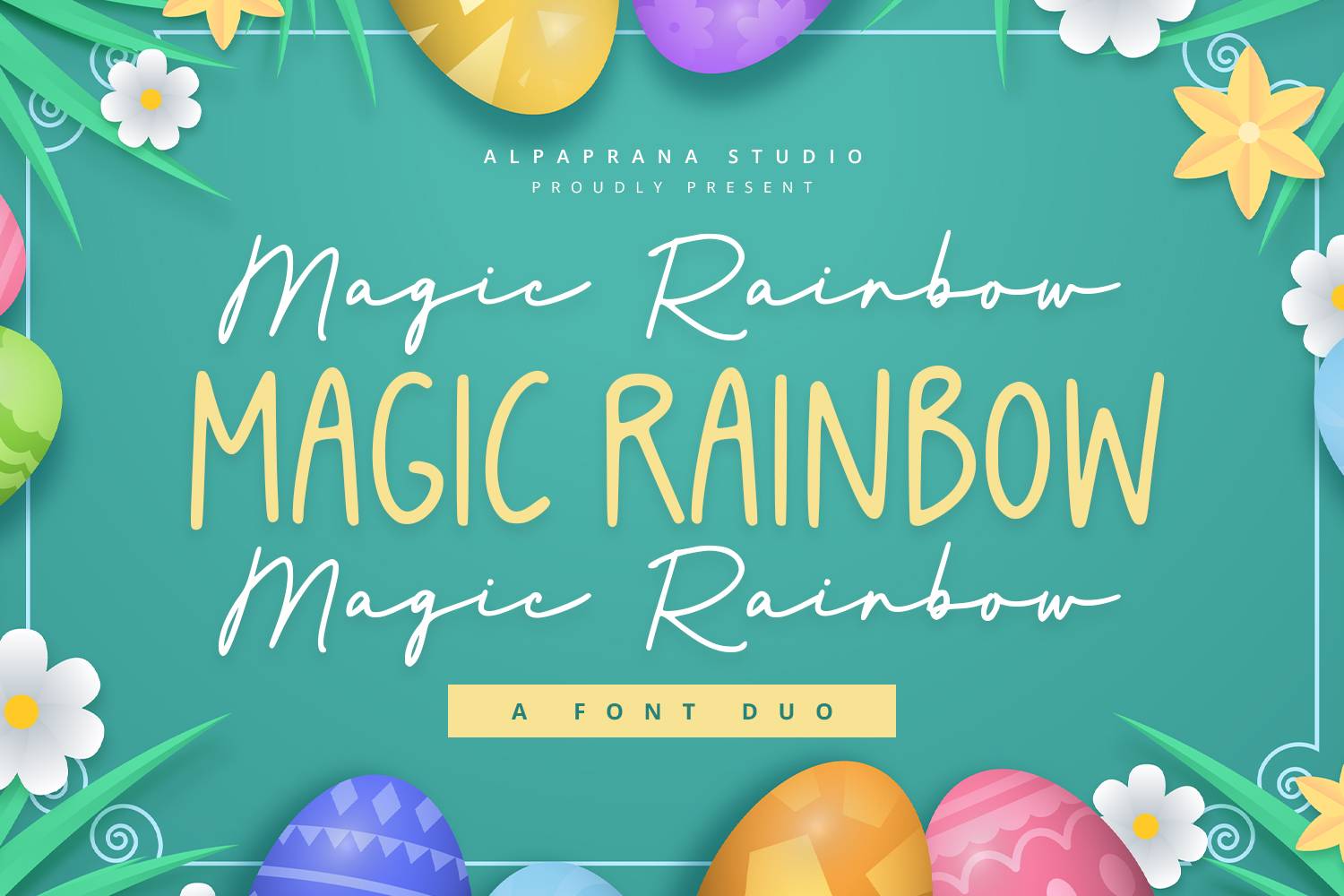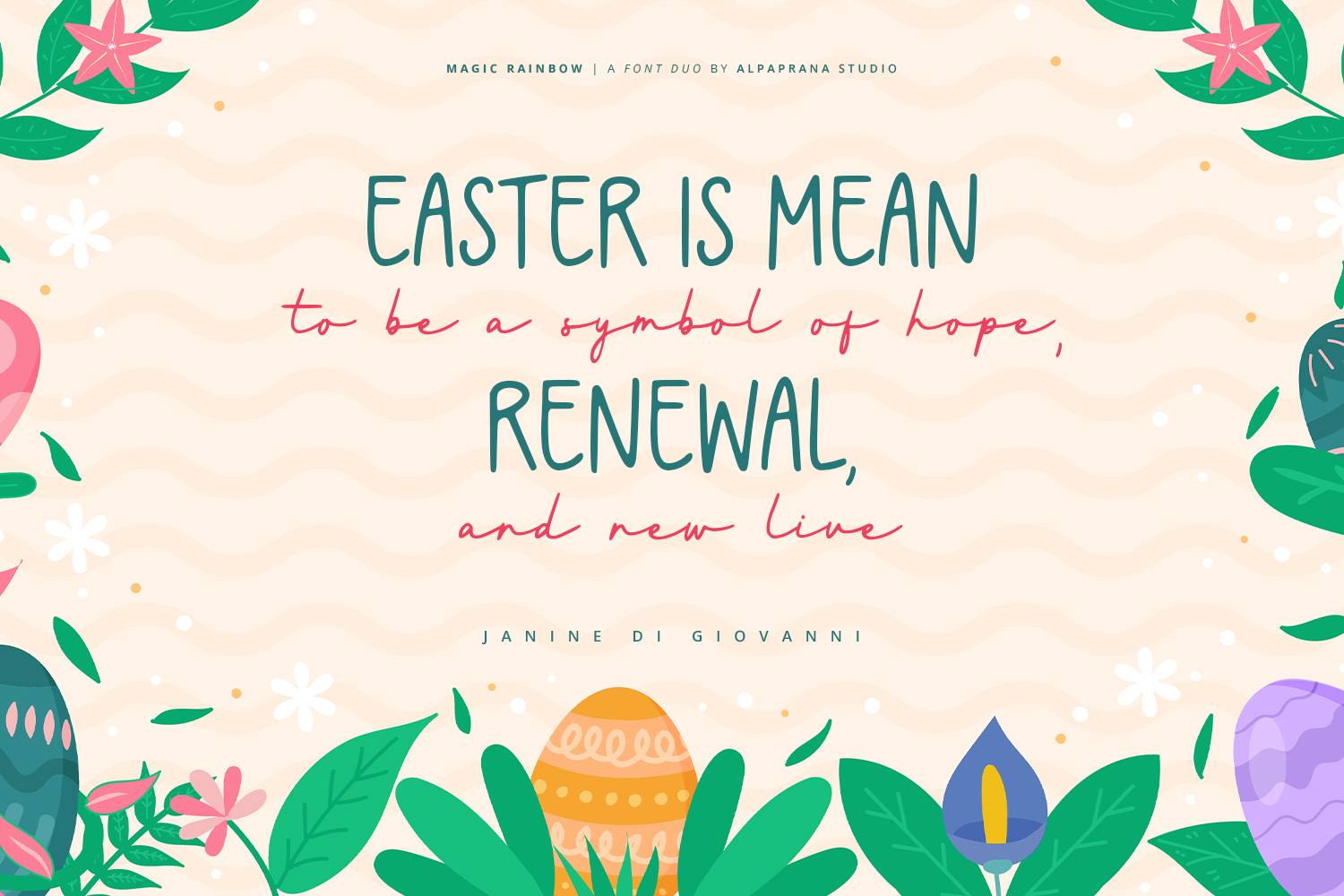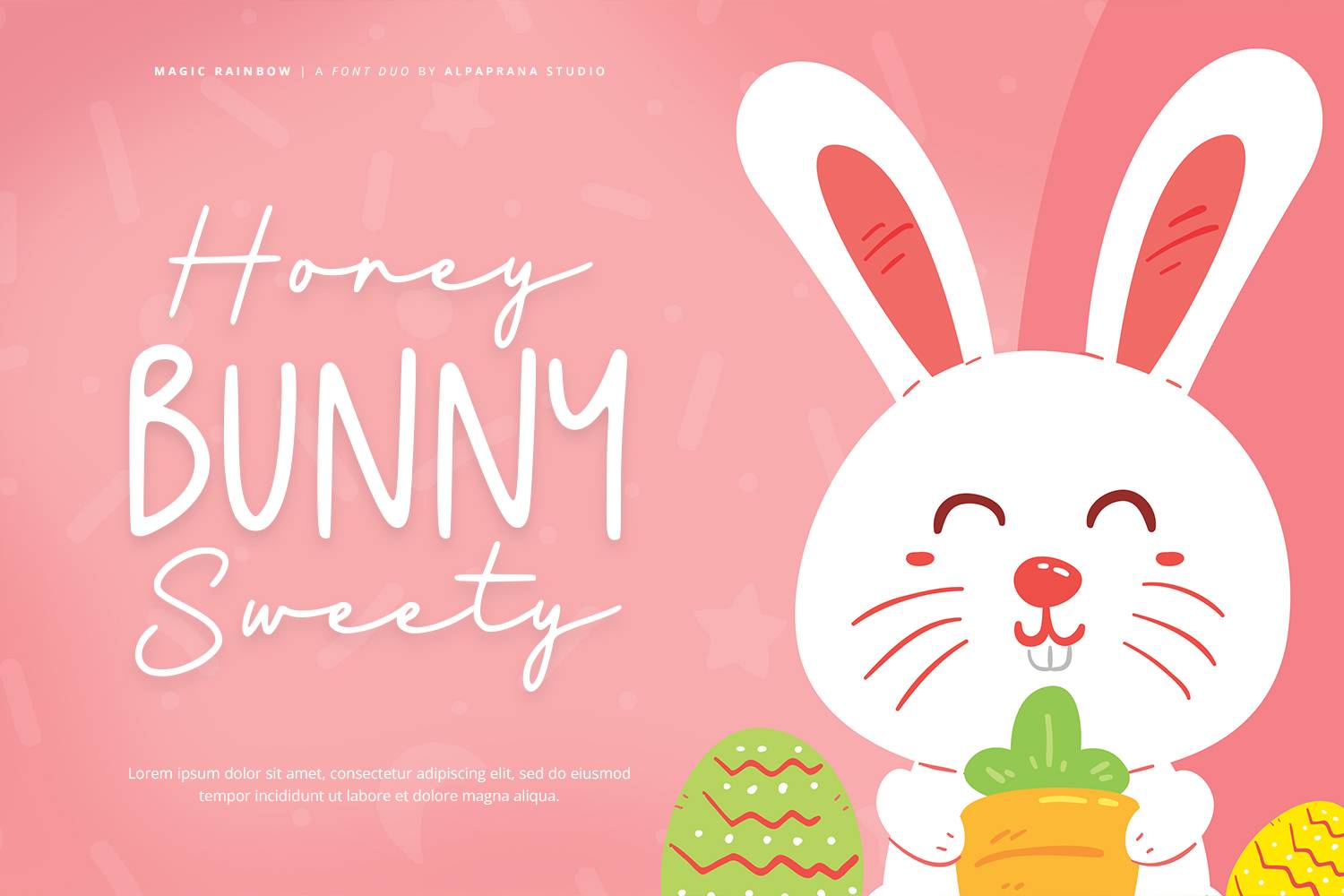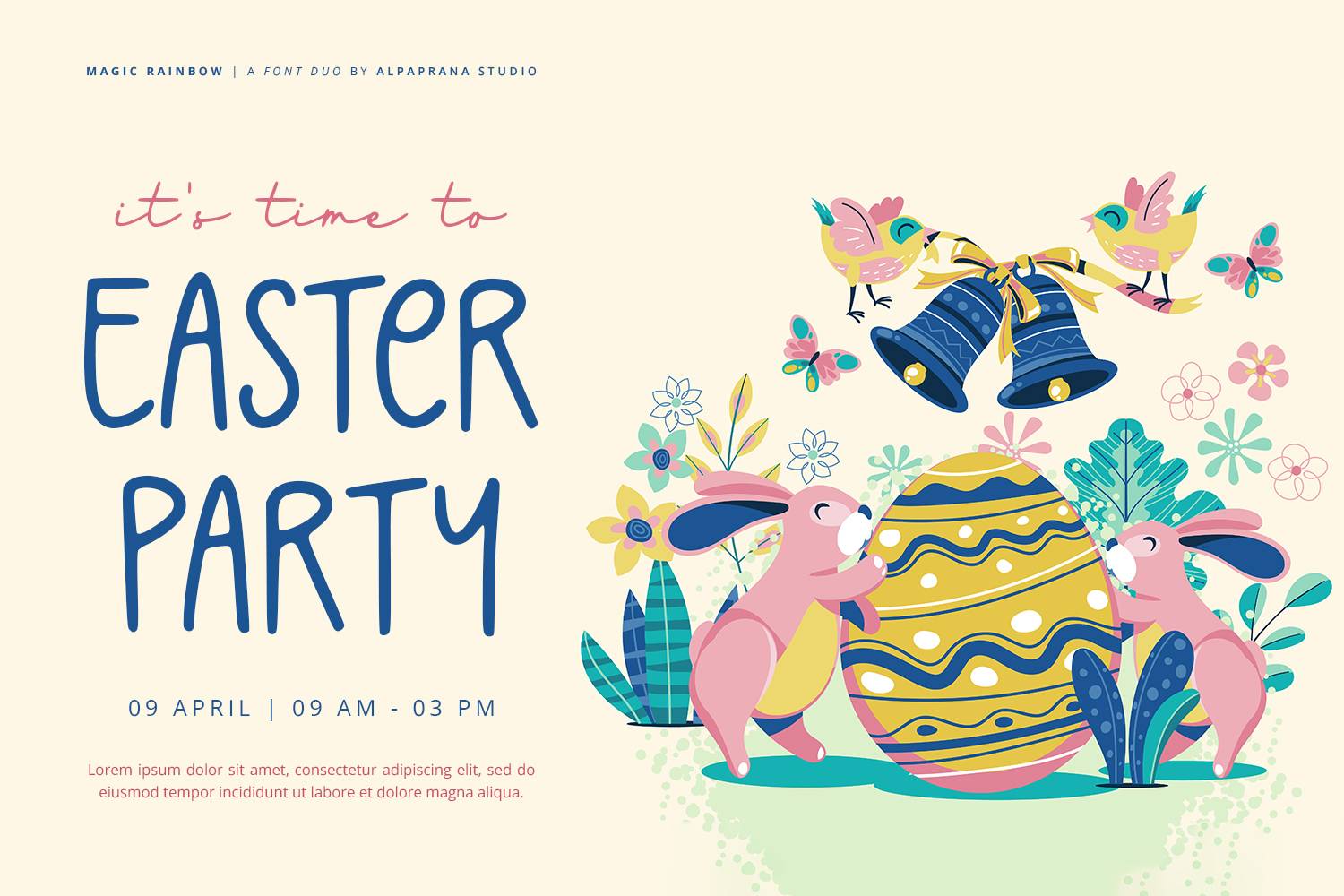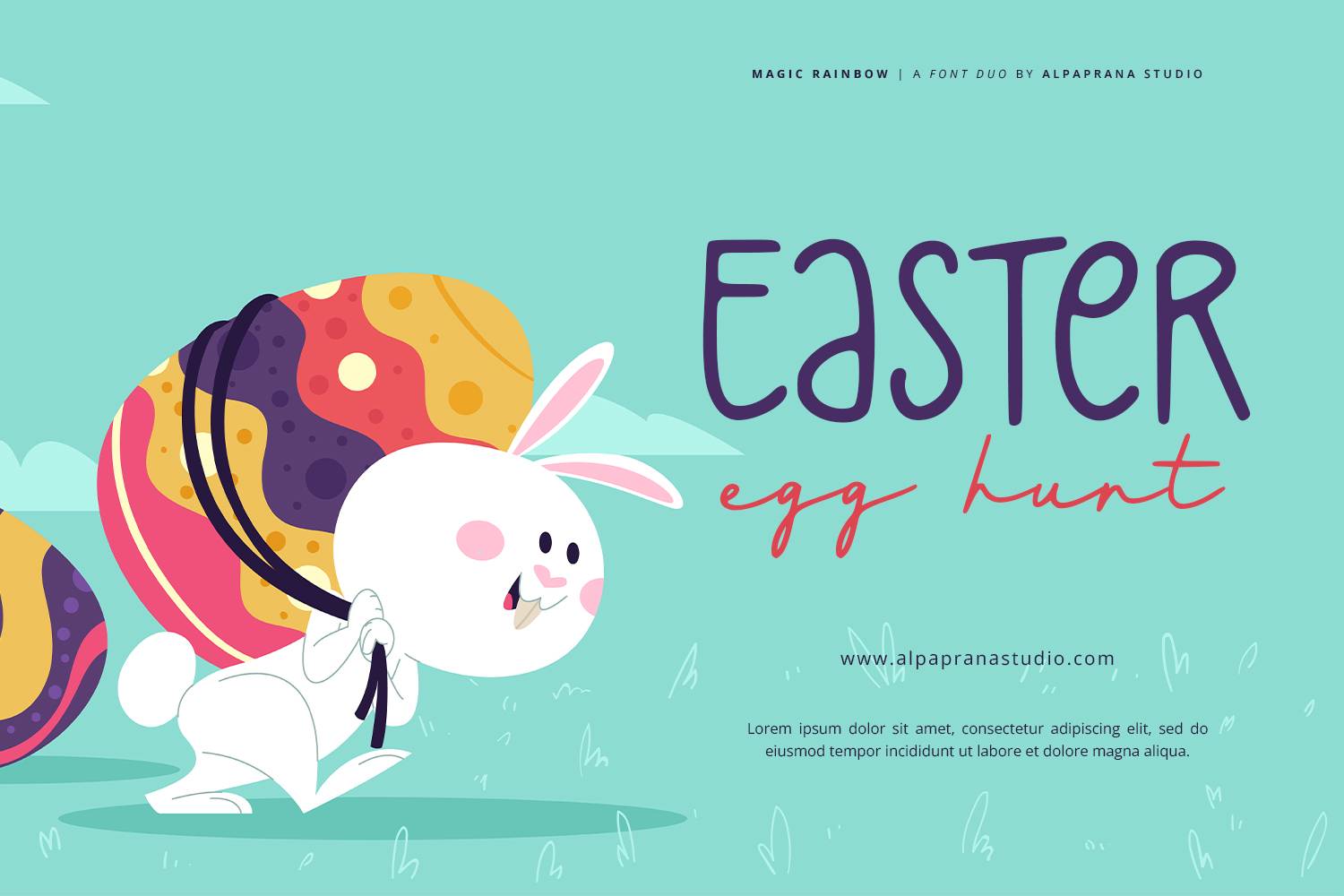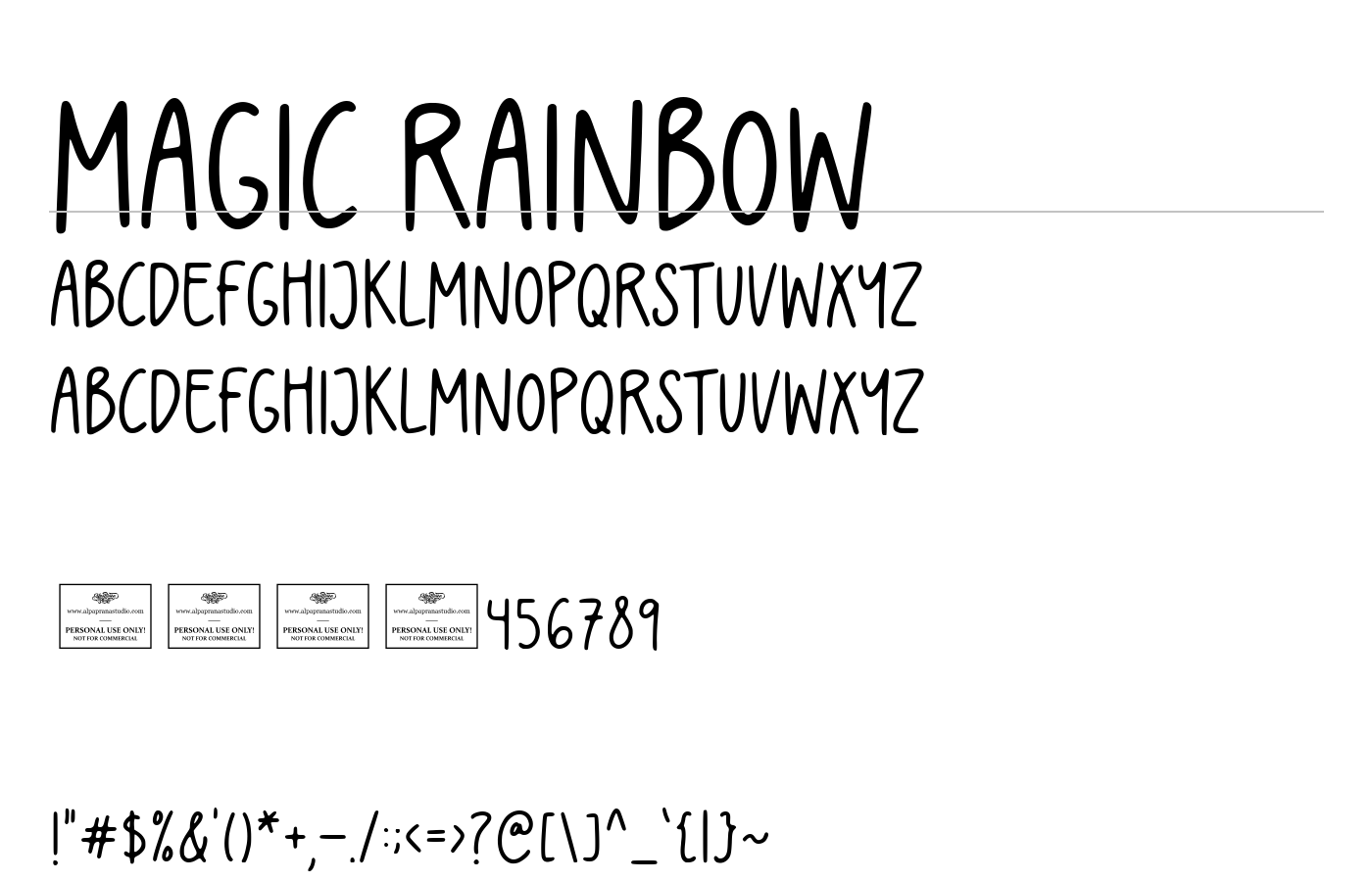
Magic Rainbow is a playful, tall, narrow sans serif font with a hand-drawn, casual style that feels light and friendly. Its slender letterforms and uneven strokes give it a whimsical and approachable personality, making it perfect for informal designs like kids’ projects, greeting cards, or creative branding that wants to appear fun and personal. This font works best in headlines or short texts where its unique charm can stand out.
Magic Rainbow Font
About Magic Rainbow Font